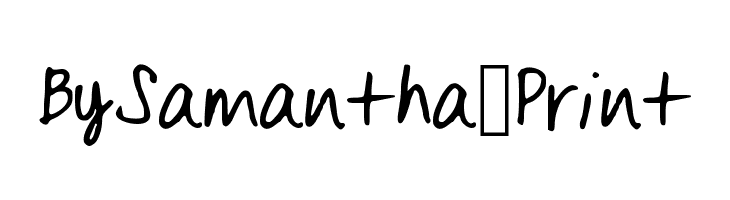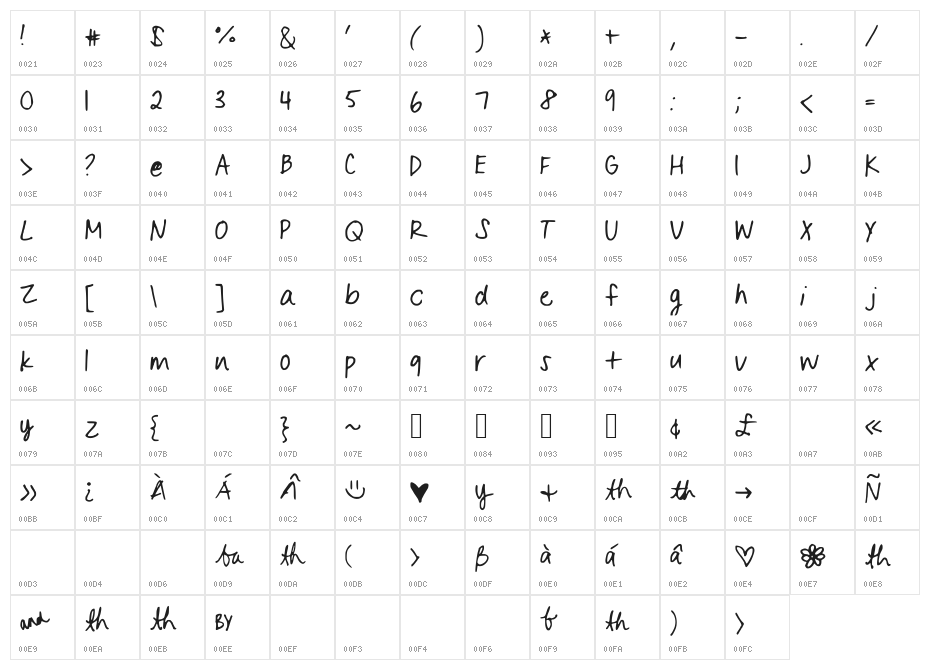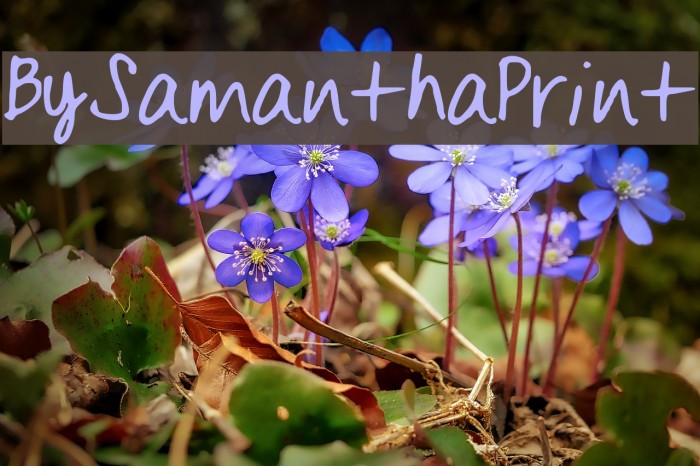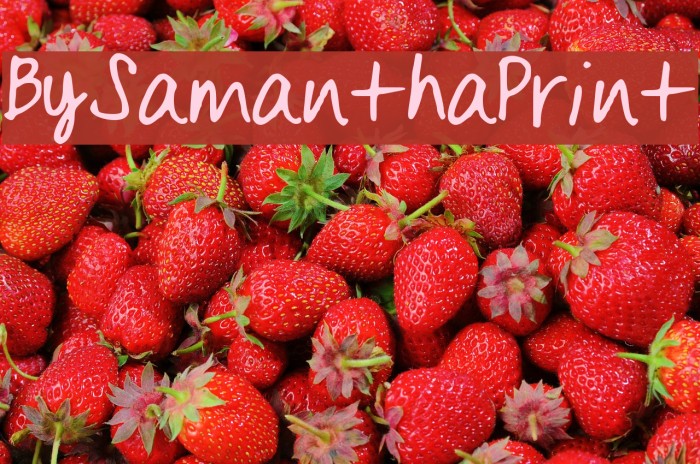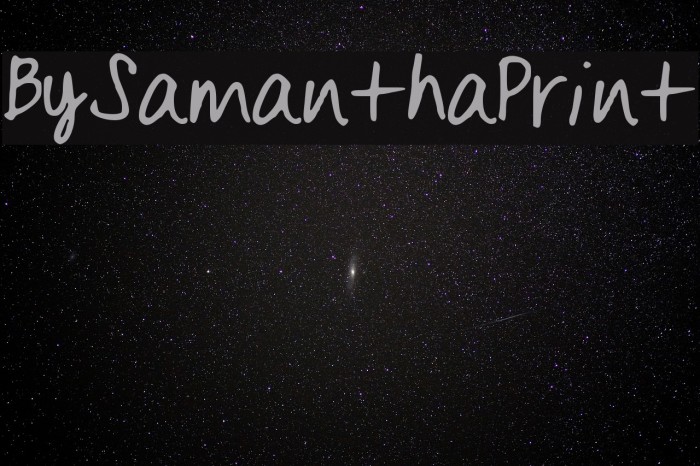
BySamantha_Print Font
BySamantha_Print Description
This font features a playful and casual handwritten style, characterized by its smooth, flowing lines and slightly irregular shapes. The letters are bold and rounded, giving a friendly and approachable appearance. The uppercase and lowercase letters maintain a consistent style, with a slight slant that adds to the informal feel. Numbers and special characters are designed with the same playful touch, ensuring uniformity across all elements. The overall look is reminiscent of handwriting with a marker, making it ideal for projects that require a personal and informal touch.
| Use Case | Headlines, Informal text, Personal projects |
| Proposed Projects | Ideal for greeting cards, personal invitations, children's books, and casual branding. |